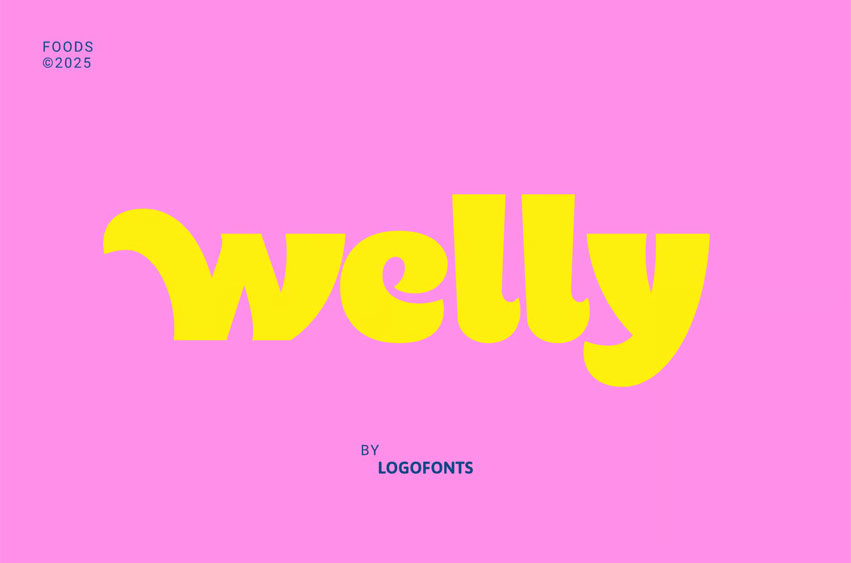
Welly Font
Welly Font Playful Bold Font for Food & Cafe Branding. Welly is a fun and bold display font designed to bring a warm, tasty vibe to your food, cafe, and restaurant projects. With its smooth curves and friendly shapes, Welly feels deliciously modern—perfect for coffee shop logos, bakery packaging, pizza menus, burger labels, and candy brands.
The font features unique alternates that let you create expressive and playful typography, giving your design a handcrafted personality that’s both eye-catching and cozy. Whether you’re building a brand identity or designing for menu layouts, kitchen signs, or cafe posters, Welly serves a delightful visual flavor.